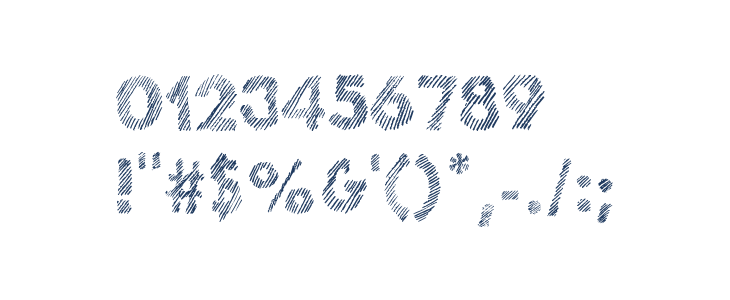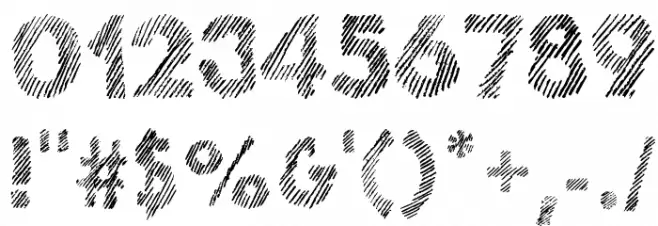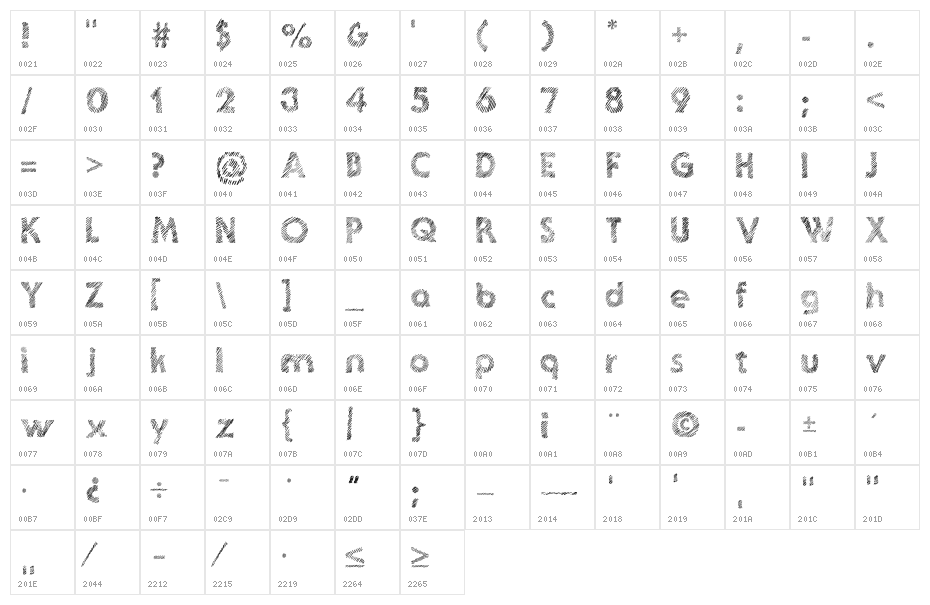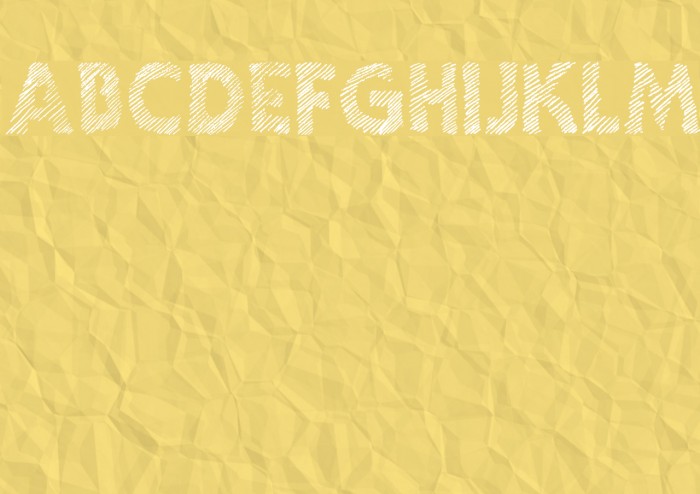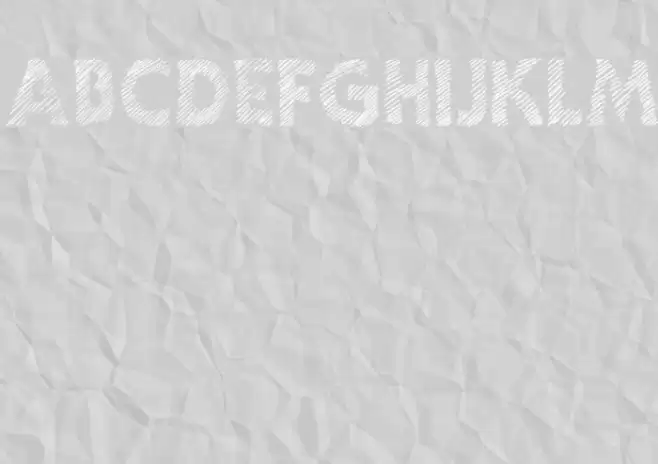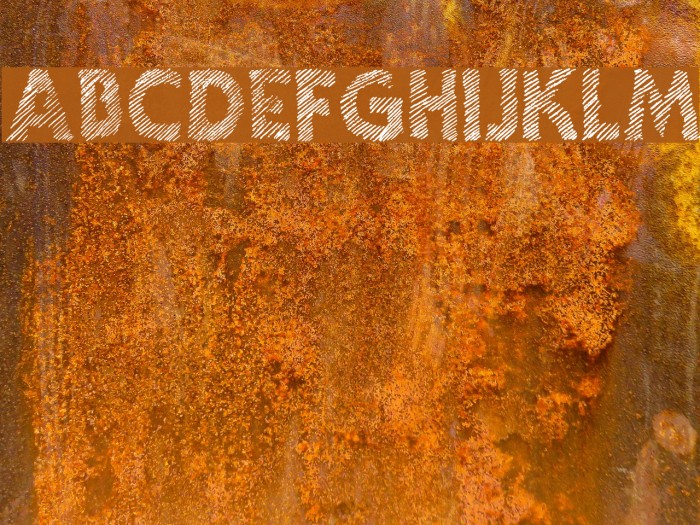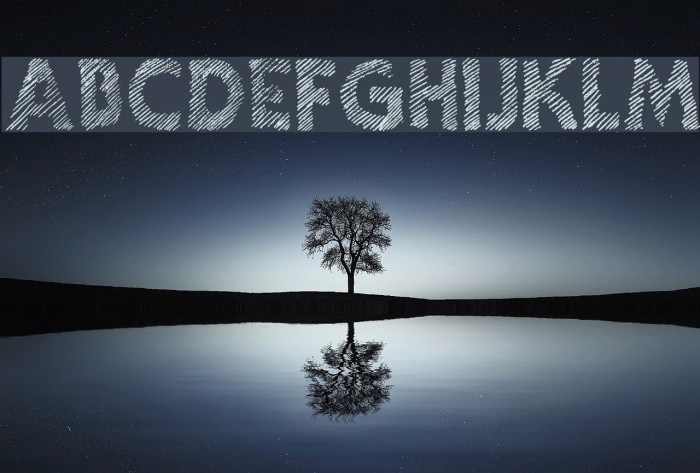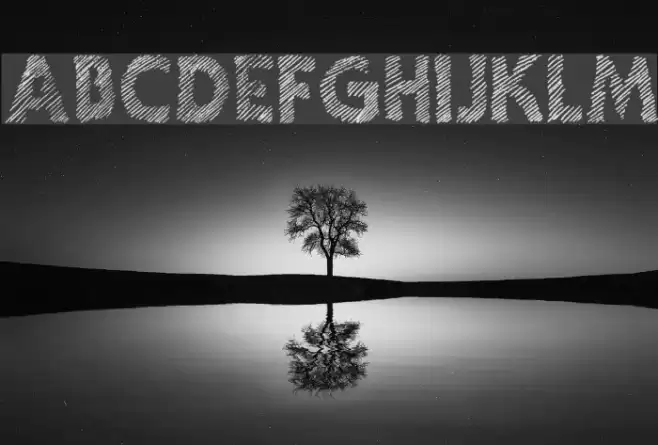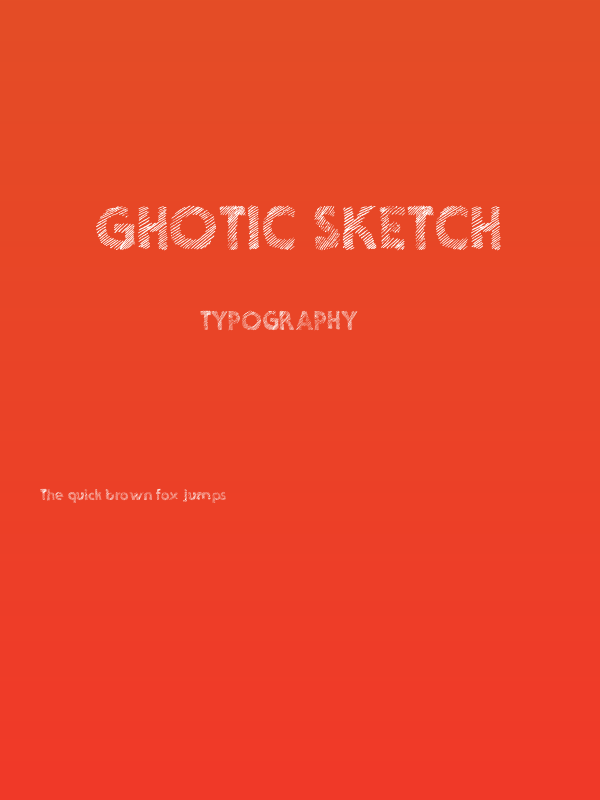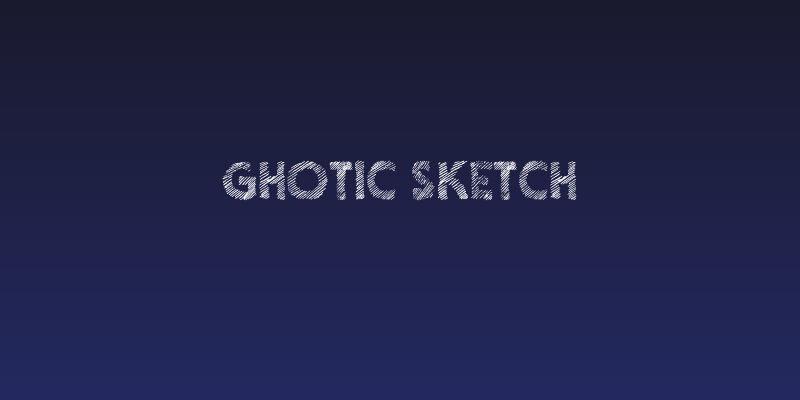
Ghotic Sketch Font
Ghotic Sketch Description
This font features a unique sketch-like appearance with diagonal hatching that gives it a textured, hand-drawn look. The characters are bold and have a playful yet edgy style, making them stand out in any design. The uppercase and lowercase letters maintain consistent proportions, while the numbers and special characters complement the overall aesthetic. The font's distinct style is reminiscent of artistic sketches, providing a dynamic and creative feel.
| Proposed Projects | Ideal for creative projects such as posters, album covers, and artistic branding materials. It can also be used in digital art and graphic design to add a hand-drawn effect. |